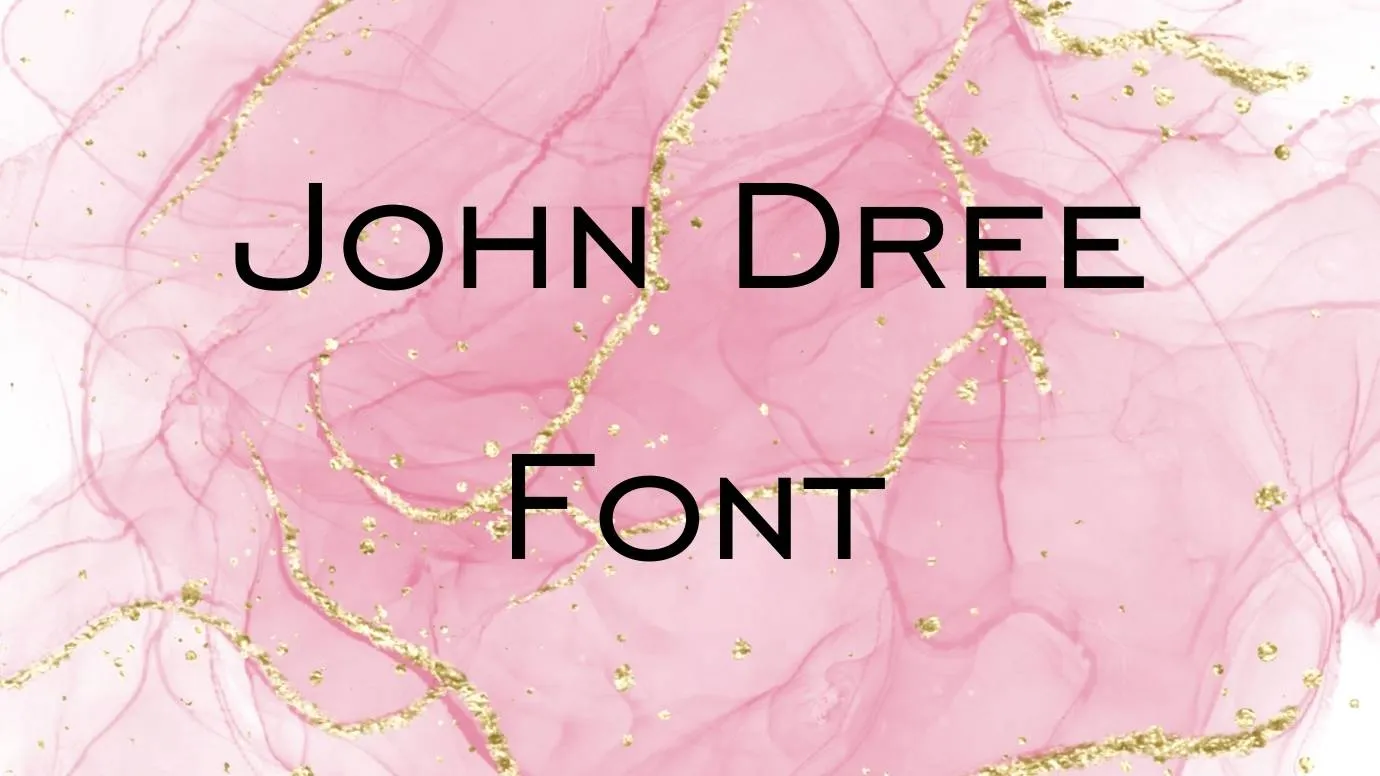
John Deere Font Family is an attractive font is the most alternative to Engravers Gothic Font that comes in a regular family. It was designed by Bitstream and released in 1990. John Deere is a Manufacturer of America that was founded by Deere & Company.
This beautiful typeface look is sans-serif but it is used for the logo of a company so, we shift into categories of Logo Fonts in the font family.
| Name | John Deere Font |
| Type | Logo |
| Designer | Bitstream |